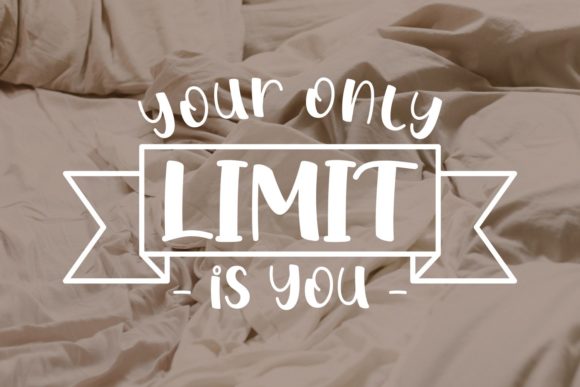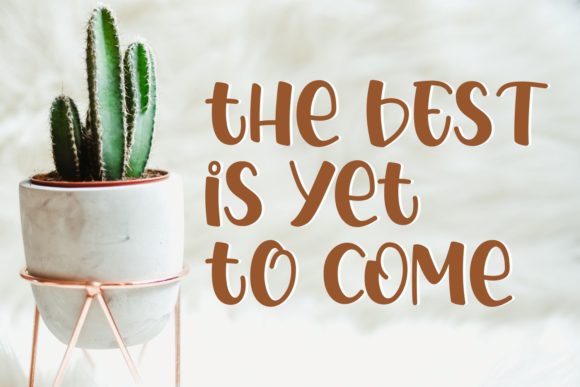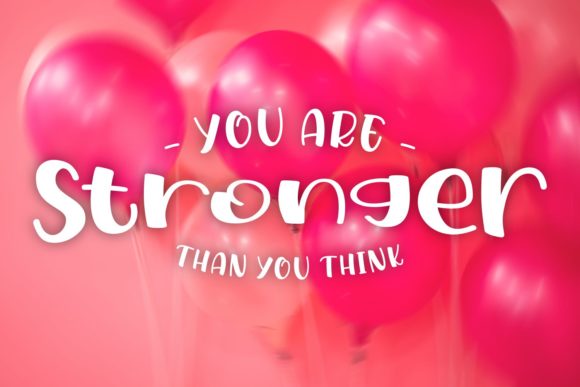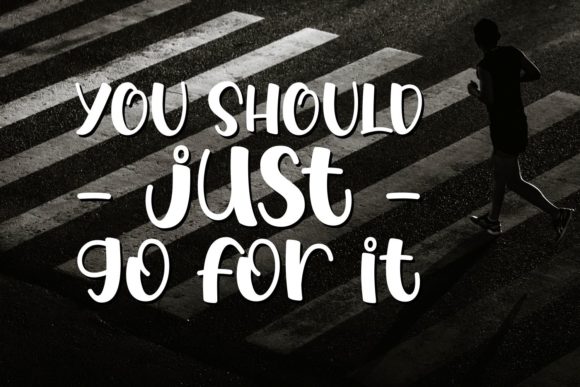
Introducing Freya Jolicia Font: Add a Playful Touch to Your Designs
Are you looking for a font that can add a playful and childish touch to your designs? Look no further than Freya Jolicia Font. This beautiful display font is perfect for designers and crafters who want to create unique and eye-catching projects. In this article, we’ll take a closer look at Freya Jolicia Font and explore its features, benefits, and uses.
What is Freya Jolicia Font?
Freya Jolicia Font is a playful display font designed to add a relaxed and childish touch to your designs. Its unique and quirky style makes it perfect for a variety of creative projects, from invitations and posters to social media graphics and branding materials. With its bold and eye-catching appearance, Freya Jolicia Font is sure to make your designs stand out from the crowd.
Key Features of Freya Jolicia Font
- Playful and childish style: Freya Jolicia Font has a fun and carefree style that’s perfect for designs that require a playful touch.
- Display font: This font is designed to be used as a display font, making it perfect for headlines, titles, and other prominent text elements.
- Unique and quirky style: Freya Jolicia Font has a one-of-a-kind style that’s sure to add a touch of personality to your designs.
- Easy to read: Despite its playful style, Freya Jolicia Font is easy to read, making it perfect for use in a variety of contexts.
Benefits of Using Freya Jolicia Font
So why should you use Freya Jolicia Font in your designs? Here are just a few benefits of using this beautiful display font:
- Adds a playful touch: Freya Jolicia Font is perfect for adding a playful and childish touch to your designs.
- Stand out from the crowd: With its unique and quirky style, Freya Jolicia Font is sure to make your designs stand out from the crowd.
- Perfect for creative projects: This font is perfect for a variety of creative projects, from invitations and posters to social media graphics and branding materials.
Uses of Freya Jolicia Font
Freya Jolicia Font is a versatile font that can be used in a variety of contexts. Here are just a few ideas for using this beautiful display font:
- Invitations: Use Freya Jolicia Font to create playful and eye-catching invitations for parties, events, and other celebrations.
- Posters: Add a playful touch to your posters with Freya Jolicia Font.
- Social media graphics: Use Freya Jolicia Font to create eye-catching social media graphics that are sure to grab attention.
- Branding materials: Add a playful touch to your branding materials, such as business cards and brochures, with Freya Jolicia Font.
| Author | Rifki (7ntypes) |
Freya Jolicia Font is a beautiful display font that’s perfect for adding a playful and childish touch to your designs. With its unique and quirky style, this font is sure to make your designs stand out from the crowd. Whether you’re a designer or crafter, Freya Jolicia Font is a great addition to your font collection. So why wait? Download Freya Jolicia Font today and start creating playful and eye-catching designs!